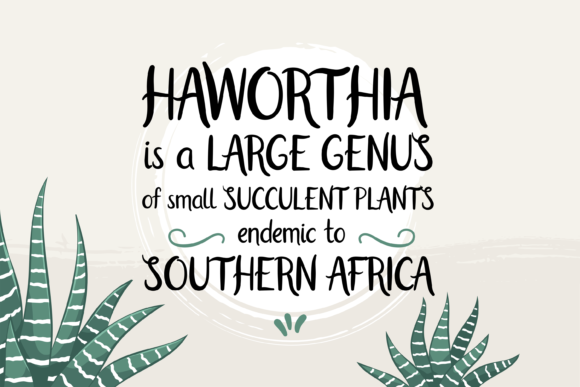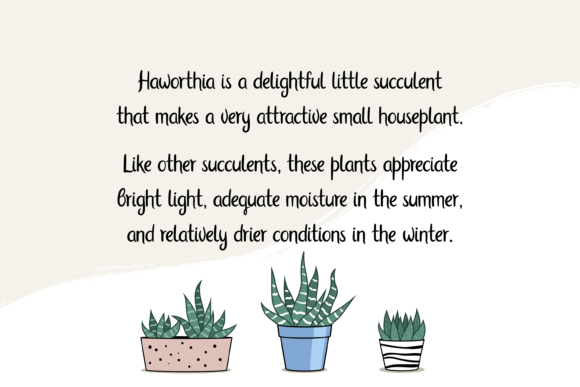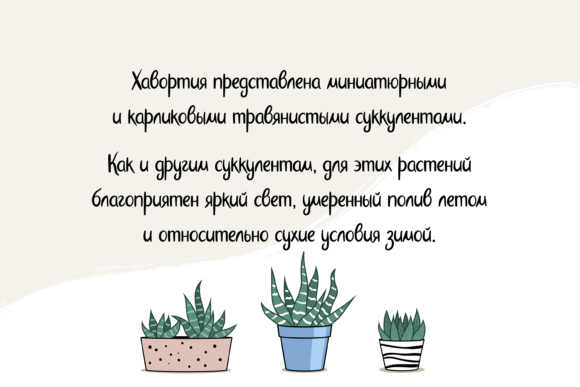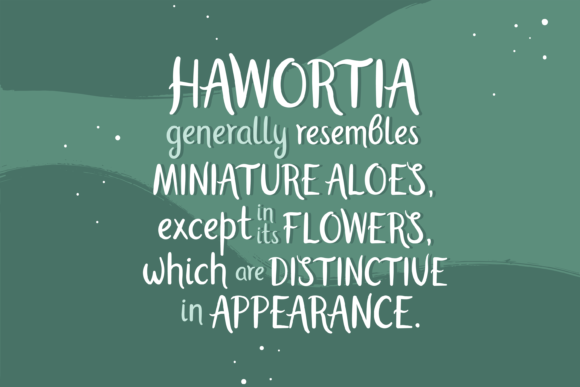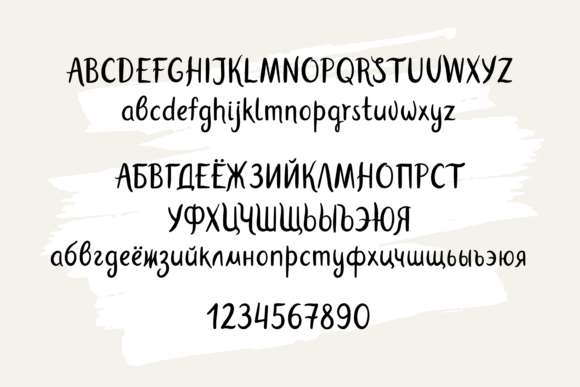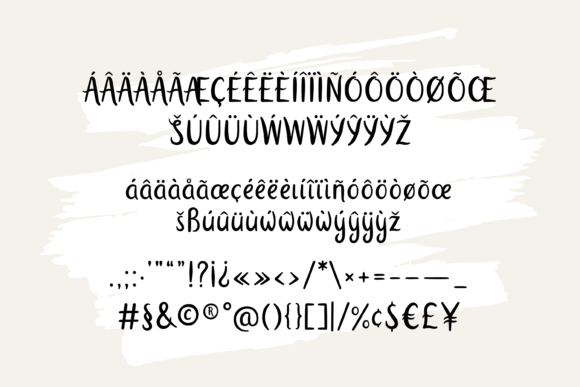
Haworthia Font: A Beautiful and Unique Handwritten Font for Your Creative Projects
Are you looking for a font that can add a touch of elegance and sophistication to your designs? Look no further than the Haworthia Font. This beautiful and unique handwritten font is incredibly versatile, making it perfect for a wide range of creative projects, from wedding invitations and stationary art to social media posts and more.
What Makes Haworthia Font So Special?
The Haworthia Font is a true gem in the world of typography. Its unique and elegant style is sure to capture the attention of your audience and leave a lasting impression. Here are just a few reasons why Haworthia Font stands out from the crowd:
- Handwritten with love: Haworthia Font is a carefully crafted handwritten font that exudes warmth and personality. Its organic and natural feel makes it perfect for designs that require a personal touch.
- Incredibly versatile: Whether you’re creating wedding invitations, social media posts, or stationary art, Haworthia Font adapts seamlessly to any design style or theme.
- Easy to read: Despite its elegant and cursive nature, Haworthia Font is surprisingly easy to read, making it perfect for body text and longer blocks of content.
Endless Creative Possibilities with Haworthia Font
With Haworthia Font, the creative possibilities are endless. Here are just a few ideas to get you started:
- Wedding invitations: Create stunning wedding invitations that set the tone for a beautiful and elegant celebration.
- Stationary art: Add a touch of personality to your stationary art with Haworthia Font’s unique and eye-catching style.
- Social media posts: Make your social media posts stand out from the crowd with Haworthia Font’s elegant and sophisticated style.
- Branding and packaging: Use Haworthia Font to create a cohesive brand identity that exudes elegance and refinement.
Tips and Tricks for Using Haworthia Font
To get the most out of Haworthia Font, here are a few tips and tricks to keep in mind:
- Experiment with font sizes: Haworthia Font looks great in a variety of font sizes, from large and bold to small and delicate.
- Play with color: Haworthia Font pairs beautifully with a range of colors, from soft pastels to rich jewel tones.
- Add embellishments: Consider adding embellishments, such as flowers or leaves, to give your designs an extra touch of elegance.
Why Designers and Crafters Love Haworthia Font
Designers and crafters alike are falling in love with Haworthia Font, and it’s easy to see why. Here are just a few reasons why Haworthia Font has become a favorite among creative professionals:
- Unique and exclusive: Haworthia Font is a one-of-a-kind font that will set your designs apart from the crowd.
- Elegant and sophisticated: Haworthia Font exudes elegance and refinement, making it perfect for high-end designs and luxury brands.
- Easy to use: Haworthia Font is surprisingly easy to use, even for those with limited design experience.
In conclusion, Haworthia Font is a beautiful and unique handwritten font that is sure to capture the hearts of designers and crafters alike. Its incredibly versatile style makes it perfect for a wide range of creative projects, from wedding invitations and stationary art to social media posts and more. With its elegant and sophisticated style, Haworthia Font is the perfect addition to any design collection.